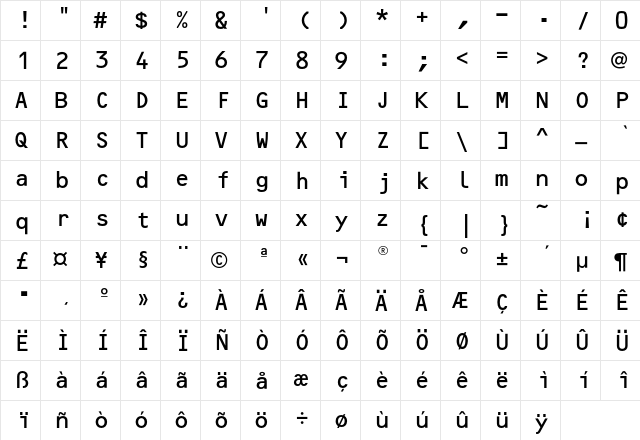
OCRBEF-Regular Regular
Design Context for OCRBEF-Regular Typeface
OCRBEF-Regular offers clean, dependable letterforms without strong stylistic allegiance, making it a practical choice for designers who need flexibility.